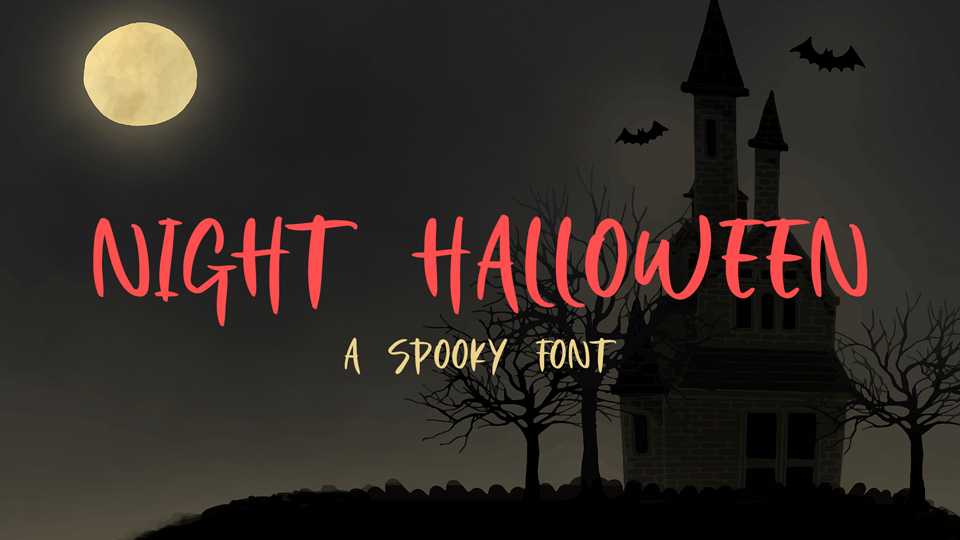
Download Night Halloween font, a spooky hand drawn font. Night Halloween is perfect for all of your Halloween projects: shirts, signs, invitations, etc.